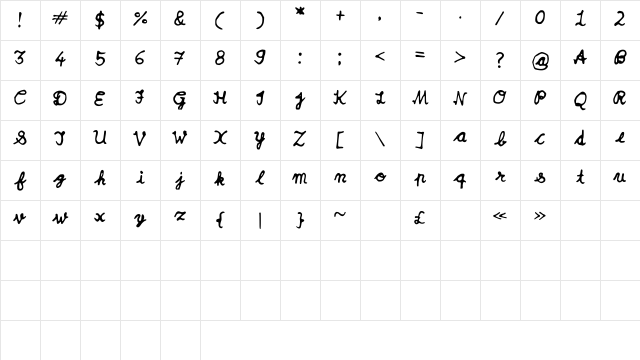
Yash_Jaiswal Medium
Design Context for Yash_Jaiswal
Yash_Jaiswal is a composed and adaptable typeface that performs quietly and consistently across a wide range of design contexts.
Pro Tip: Use Yash_Jaiswal in both headline and body roles to test its range before committing to a single application.